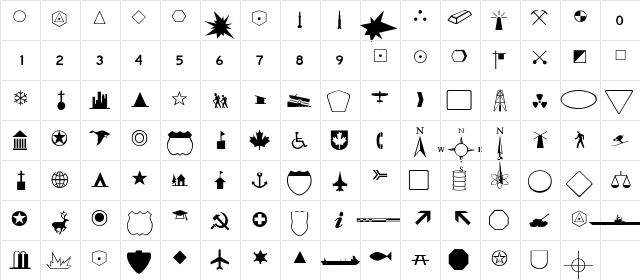
Mapmaker Thin Regular
Design Context for Mapmaker Thin Typeface
Mapmaker Thin takes a measured approach to typography — its balanced proportions and neutral character make it a reliable workhorse for both digital and print work. Its slender proportions lend an understated elegance to any composition.